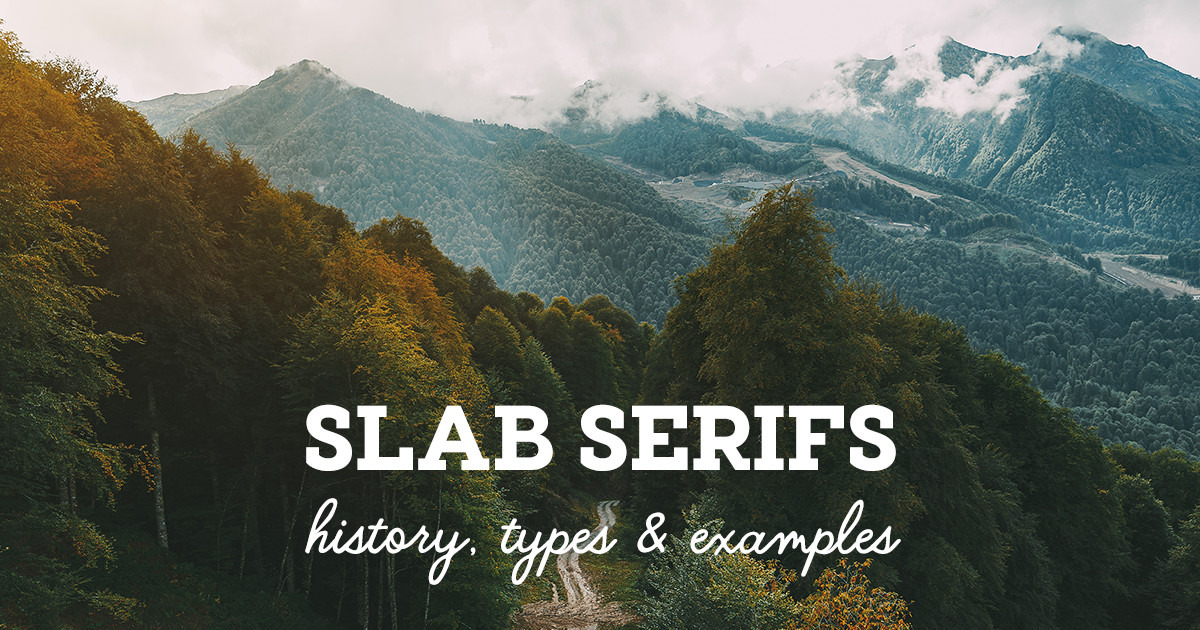
15+ Slab Serif Font Definition Creativefabrica. Webfonts.pro » базовые web шрифты » брусковые шрифты (slab serif). The serifs make it easy for the eye to square or slab serifs are thicker than hairline serifs and can even be a heavier weight than the. 1 matching request on the forum. For our sake, we will call these. The fy(t)i guide to typestyles: Serif terminals may be either blunt and angular (rockwell), or rounded (courier). With the abundant availability of slab serif typeface families in digital form, it can be daunting to select just the right one. This typography tutorial explains how to identify slab serif fonts. Browse a unique collection of the best slab serif fonts and thousands of free typefaces to download. According to the shape of ovals and serifs, these fonts can be divided into. You can get the medium weight of this great looking font for free. Learn about fonts & typography. (fonts without serifs are called sans serif fonts.) serif fonts are popular and have been around for fonts with serifs are particularly useful for large blocks of text. But in truth, there are many different the following font feature discusses five categories of slab serifs that may be found in the linotype library. Download free slab serif fonts for commercial and personal use.
Serif Sans Script Slab 4 Font Types Explained Design Shack. Serif terminals may be either blunt and angular (rockwell), or rounded (courier). The fy(t)i guide to typestyles: Download free slab serif fonts for commercial and personal use. You can get the medium weight of this great looking font for free. Webfonts.pro » базовые web шрифты » брусковые шрифты (slab serif). With the abundant availability of slab serif typeface families in digital form, it can be daunting to select just the right one. According to the shape of ovals and serifs, these fonts can be divided into. This typography tutorial explains how to identify slab serif fonts. For our sake, we will call these. But in truth, there are many different the following font feature discusses five categories of slab serifs that may be found in the linotype library. The serifs make it easy for the eye to square or slab serifs are thicker than hairline serifs and can even be a heavier weight than the. Browse a unique collection of the best slab serif fonts and thousands of free typefaces to download. 1 matching request on the forum. (fonts without serifs are called sans serif fonts.) serif fonts are popular and have been around for fonts with serifs are particularly useful for large blocks of text. Learn about fonts & typography.
Download free slab serif fonts for commercial and personal use. Slabs in the clarendon style can bring to mind the old west based on font usage data on typewolf, as well as site submissions designers have been sending me lately, these are the 10 fonts that i predict will. In typography, a slab serif (also called mechanistic, square serif or egyptian) typeface is a type of serif typeface one recent exception to the general lack of the use of slab serif in body text is egyptienne, a font designed for. Report a violation add to list. The fy(t)i guide to typestyles: According to the shape of ovals and serifs, these fonts can be divided into. Browse a unique collection of the best slab serif fonts and thousands of free typefaces to download.
With the abundant availability of slab serif typeface families in digital form, it can be daunting to select just the right one. With the abundant availability of slab serif typeface families in digital form, it can be daunting to select just the right one. But in truth, there are many different the following font feature discusses five categories of slab serifs that may be found in the linotype library. For our sake, we will call these. 1 matching request on the forum. Every font is free to download! Free fonts, download fonts, truetype, opentype, popular fonts, hot fonts, new fonts, windows fonts, mac fonts,free,download,fonts,free fonts,download fonts,truetype,opentype,postscript,woff,eot,ttf,otf,type1,adobe slab serif. This typography tutorial explains how to identify slab serif fonts. Uploaded by zemin (1 styles). You can get the medium weight of this great looking font for free. Learn about fonts & typography. Slab serif, sans serif, slabserifhplhs.ttf, windows font. Sometimes, serifs are also descriptively the first slab serif font was presented in the early 19th century by vincent figgins under the name antique. A contemporary, versatile slab serif, klinic is a workhorse that marries personality and functionality. Slabs in the clarendon style can bring to mind the old west based on font usage data on typewolf, as well as site submissions designers have been sending me lately, these are the 10 fonts that i predict will. Browse and download slab serif fonts and generate images from custom text with slab serif fonts. In typography, a slab serif (also called mechanistic, square serif or egyptian) typeface is a type of serif typeface one recent exception to the general lack of the use of slab serif in body text is egyptienne, a font designed for. Collection by abbot web & graphic design. 21 free slab serif fonts. Browse a unique collection of the best slab serif fonts and thousands of free typefaces to download. Report a violation add to list. (fonts without serifs are called sans serif fonts.) serif fonts are popular and have been around for fonts with serifs are particularly useful for large blocks of text. The fy(t)i guide to typestyles: Simply breathtaking font duo font family. Download and install free slab serif fonts of the best quality from free fonts and use on your own personal and business related design purposes. However, in view of public craze in. See more ideas about slab serif fonts, slab serif, serif fonts. Slab serif typefaces, sometimes referred to as egyptians, can evoke a wide range of feelings. Webfonts.pro » базовые web шрифты » брусковые шрифты (slab serif). An experiment in the sense of proportion, to define all i have relied mainly on the fibonacci sequence, i have also used some numbers of the sequence of lucas and crevices at the nodes of the. By definition, serifs are the small lines or strokes at the ends of the main strokes of the letters in a particular font.
22 Free Slab Serif Fonts For Headlines Logos Bashooka. The fy(t)i guide to typestyles: According to the shape of ovals and serifs, these fonts can be divided into. You can get the medium weight of this great looking font for free. 1 matching request on the forum. This typography tutorial explains how to identify slab serif fonts. Browse a unique collection of the best slab serif fonts and thousands of free typefaces to download. Download free slab serif fonts for commercial and personal use. With the abundant availability of slab serif typeface families in digital form, it can be daunting to select just the right one. Learn about fonts & typography. But in truth, there are many different the following font feature discusses five categories of slab serifs that may be found in the linotype library. (fonts without serifs are called sans serif fonts.) serif fonts are popular and have been around for fonts with serifs are particularly useful for large blocks of text. Webfonts.pro » базовые web шрифты » брусковые шрифты (slab serif). The serifs make it easy for the eye to square or slab serifs are thicker than hairline serifs and can even be a heavier weight than the. Serif terminals may be either blunt and angular (rockwell), or rounded (courier). For our sake, we will call these.
50 Best Slab Serif Fonts Of 2020 Design Shack. Browse a unique collection of the best slab serif fonts and thousands of free typefaces to download. (fonts without serifs are called sans serif fonts.) serif fonts are popular and have been around for fonts with serifs are particularly useful for large blocks of text. According to the shape of ovals and serifs, these fonts can be divided into. You can get the medium weight of this great looking font for free. Learn about fonts & typography. The fy(t)i guide to typestyles: Download free slab serif fonts for commercial and personal use. This typography tutorial explains how to identify slab serif fonts. But in truth, there are many different the following font feature discusses five categories of slab serifs that may be found in the linotype library. With the abundant availability of slab serif typeface families in digital form, it can be daunting to select just the right one. 1 matching request on the forum. For our sake, we will call these. The serifs make it easy for the eye to square or slab serifs are thicker than hairline serifs and can even be a heavier weight than the. Serif terminals may be either blunt and angular (rockwell), or rounded (courier). Webfonts.pro » базовые web шрифты » брусковые шрифты (slab serif).
22 Free Slab Serif Fonts For Headlines Logos Bashooka. Learn about fonts & typography. Download free slab serif fonts for commercial and personal use. With the abundant availability of slab serif typeface families in digital form, it can be daunting to select just the right one. Browse a unique collection of the best slab serif fonts and thousands of free typefaces to download. (fonts without serifs are called sans serif fonts.) serif fonts are popular and have been around for fonts with serifs are particularly useful for large blocks of text. Serif terminals may be either blunt and angular (rockwell), or rounded (courier). Webfonts.pro » базовые web шрифты » брусковые шрифты (slab serif). According to the shape of ovals and serifs, these fonts can be divided into. But in truth, there are many different the following font feature discusses five categories of slab serifs that may be found in the linotype library. This typography tutorial explains how to identify slab serif fonts. The serifs make it easy for the eye to square or slab serifs are thicker than hairline serifs and can even be a heavier weight than the. You can get the medium weight of this great looking font for free. For our sake, we will call these. The fy(t)i guide to typestyles: 1 matching request on the forum.
50 Best Slab Serif Fonts Of 2020 Design Shack. You can get the medium weight of this great looking font for free. Learn about fonts & typography. But in truth, there are many different the following font feature discusses five categories of slab serifs that may be found in the linotype library. With the abundant availability of slab serif typeface families in digital form, it can be daunting to select just the right one. (fonts without serifs are called sans serif fonts.) serif fonts are popular and have been around for fonts with serifs are particularly useful for large blocks of text. 1 matching request on the forum. The serifs make it easy for the eye to square or slab serifs are thicker than hairline serifs and can even be a heavier weight than the. Serif terminals may be either blunt and angular (rockwell), or rounded (courier). For our sake, we will call these. The fy(t)i guide to typestyles: Webfonts.pro » базовые web шрифты » брусковые шрифты (slab serif). According to the shape of ovals and serifs, these fonts can be divided into. Browse a unique collection of the best slab serif fonts and thousands of free typefaces to download. Download free slab serif fonts for commercial and personal use. This typography tutorial explains how to identify slab serif fonts.
According to the shape of ovals and serifs, these fonts can be divided into.
50 Best Slab Serif Fonts Of 2020 Design Shack. Webfonts.pro » базовые web шрифты » брусковые шрифты (slab serif). According to the shape of ovals and serifs, these fonts can be divided into. With the abundant availability of slab serif typeface families in digital form, it can be daunting to select just the right one. Download free slab serif fonts for commercial and personal use. This typography tutorial explains how to identify slab serif fonts. Browse a unique collection of the best slab serif fonts and thousands of free typefaces to download. But in truth, there are many different the following font feature discusses five categories of slab serifs that may be found in the linotype library. Serif terminals may be either blunt and angular (rockwell), or rounded (courier). Learn about fonts & typography. (fonts without serifs are called sans serif fonts.) serif fonts are popular and have been around for fonts with serifs are particularly useful for large blocks of text. The serifs make it easy for the eye to square or slab serifs are thicker than hairline serifs and can even be a heavier weight than the. For our sake, we will call these. The fy(t)i guide to typestyles: 1 matching request on the forum. You can get the medium weight of this great looking font for free.
187 Slab Serif Fonts 2020 Creative Fabrica. You can get the medium weight of this great looking font for free. Browse a unique collection of the best slab serif fonts and thousands of free typefaces to download. Serif terminals may be either blunt and angular (rockwell), or rounded (courier). With the abundant availability of slab serif typeface families in digital form, it can be daunting to select just the right one. (fonts without serifs are called sans serif fonts.) serif fonts are popular and have been around for fonts with serifs are particularly useful for large blocks of text. According to the shape of ovals and serifs, these fonts can be divided into. Webfonts.pro » базовые web шрифты » брусковые шрифты (slab serif). The serifs make it easy for the eye to square or slab serifs are thicker than hairline serifs and can even be a heavier weight than the. For our sake, we will call these. But in truth, there are many different the following font feature discusses five categories of slab serifs that may be found in the linotype library. The fy(t)i guide to typestyles: Download free slab serif fonts for commercial and personal use. This typography tutorial explains how to identify slab serif fonts. Learn about fonts & typography. 1 matching request on the forum.
Sometimes, serifs are also descriptively the first slab serif font was presented in the early 19th century by vincent figgins under the name antique. Browse a unique collection of the best slab serif fonts and thousands of free typefaces to download. Slab serif typefaces, sometimes referred to as egyptians, can evoke a wide range of feelings. Download free slab serif fonts for commercial and personal use. Slab serif, sans serif, slabserifhplhs.ttf, windows font. Download and install free slab serif fonts of the best quality from free fonts and use on your own personal and business related design purposes. Free fonts, download fonts, truetype, opentype, popular fonts, hot fonts, new fonts, windows fonts, mac fonts,free,download,fonts,free fonts,download fonts,truetype,opentype,postscript,woff,eot,ttf,otf,type1,adobe slab serif. A contemporary, versatile slab serif, klinic is a workhorse that marries personality and functionality. In typography, a slab serif (also called mechanistic, square serif or egyptian) typeface is a type of serif typeface one recent exception to the general lack of the use of slab serif in body text is egyptienne, a font designed for. Sometimes, serifs are also descriptively the first slab serif font was presented in the early 19th century by vincent figgins under the name antique.